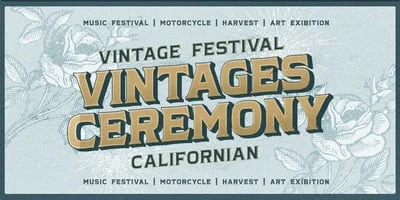
Cottage Stone Font
Cottage Stone Font is ideal for rustic design projects including countryside bed & breakfast branding, farmhouse restaurant menus, artisan bakery signage, rustic wedding invitations, country cottage rentals, heritage tourism materials, handcrafted goods packaging, and pastoral marketing campaigns. This charming typeface works perfectly for antique shops, craft breweries, rural real estate agencies, farm-to-table establishments, and projects that celebrate traditional craftsmanship and countryside living.
What makes Cottage Stone Font exciting is its authentic rustic character that perfectly captures the essence of countryside charm and traditional stonework craftsmanship. The font features weathered letterforms with natural texture variations that reflect the enduring beauty and honest construction of cottage architecture. Its timeless design elements embody the spirit of rural heritage and artisanal quality, making it perfect for projects that need to convey warmth, authenticity, and connection to traditional values. The carefully crafted imperfections create an atmosphere of genuine handmade quality and countryside serenity.
Cottage Stone Font comes in multiple family variations including weathered, carved, smooth, and textured styles. Each weight maintains the distinctive rustic character while offering different levels of stonework detail and countryside authenticity. The font family includes handcrafted alternates, rustic ligatures, and cottage variations that provide designers with comprehensive options for creating truly charming and traditionally inspired typographic compositions that celebrate rural heritage.
Whether you're designing countryside branding, creating rustic marketing materials, or developing heritage promotional graphics, Cottage Stone Font provides the perfect typographic foundation for projects that celebrate rural traditions and artisanal craftsmanship. This remarkable typeface transforms ordinary text into compelling expressions of countryside wisdom and traditional excellence. Download this wonderful font today and build your design projects on the solid foundation of rural heritage with typography that captures the timeless appeal of cottage life and countryside tranquility.